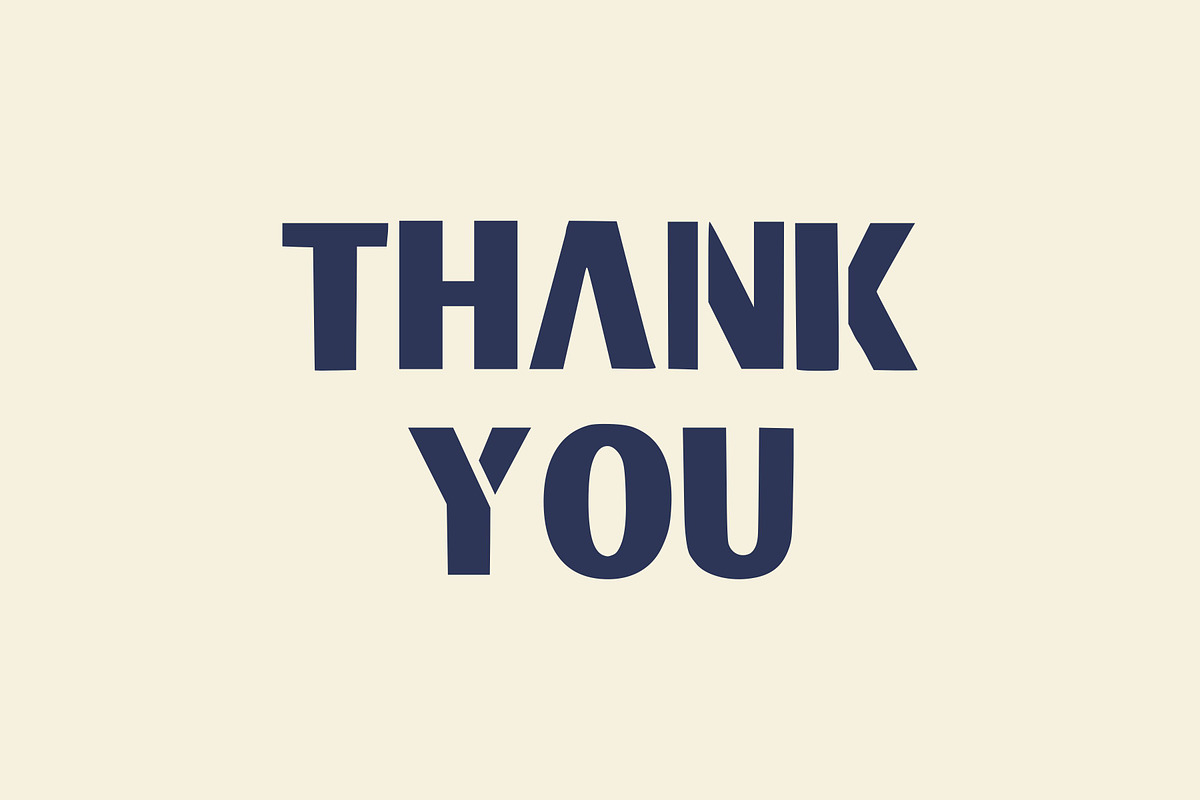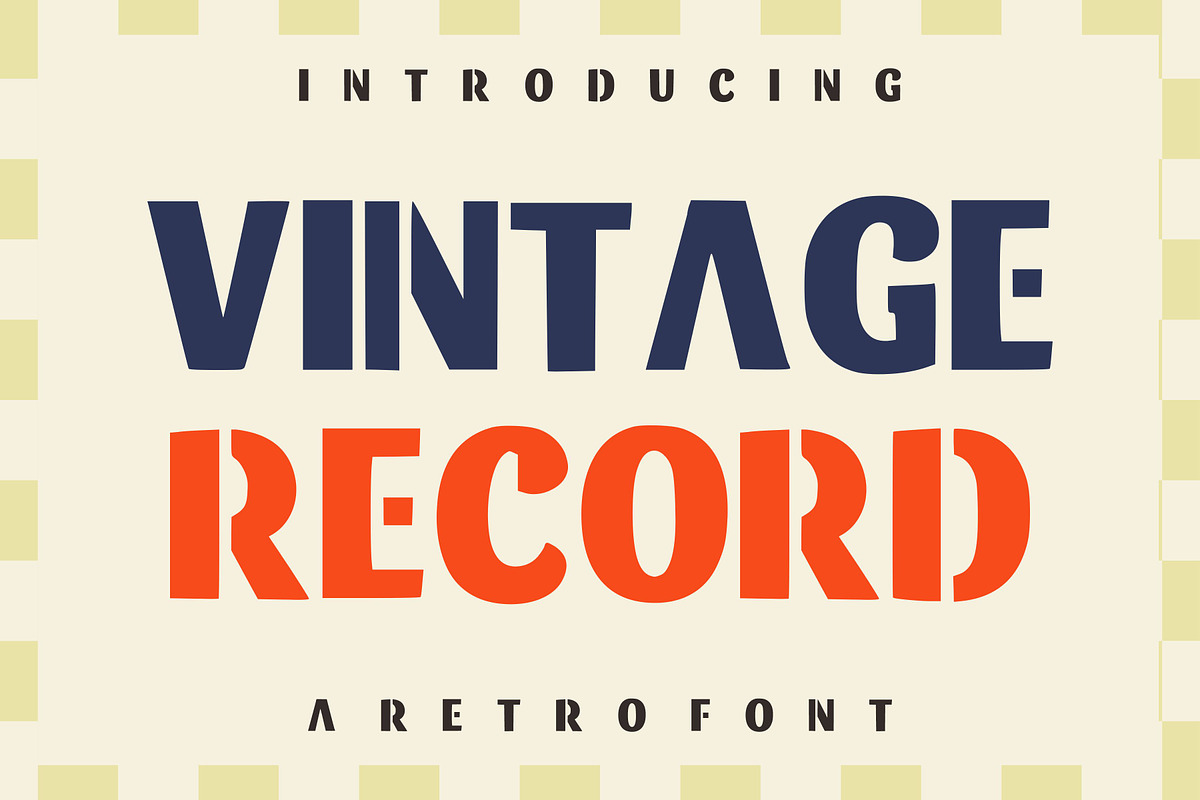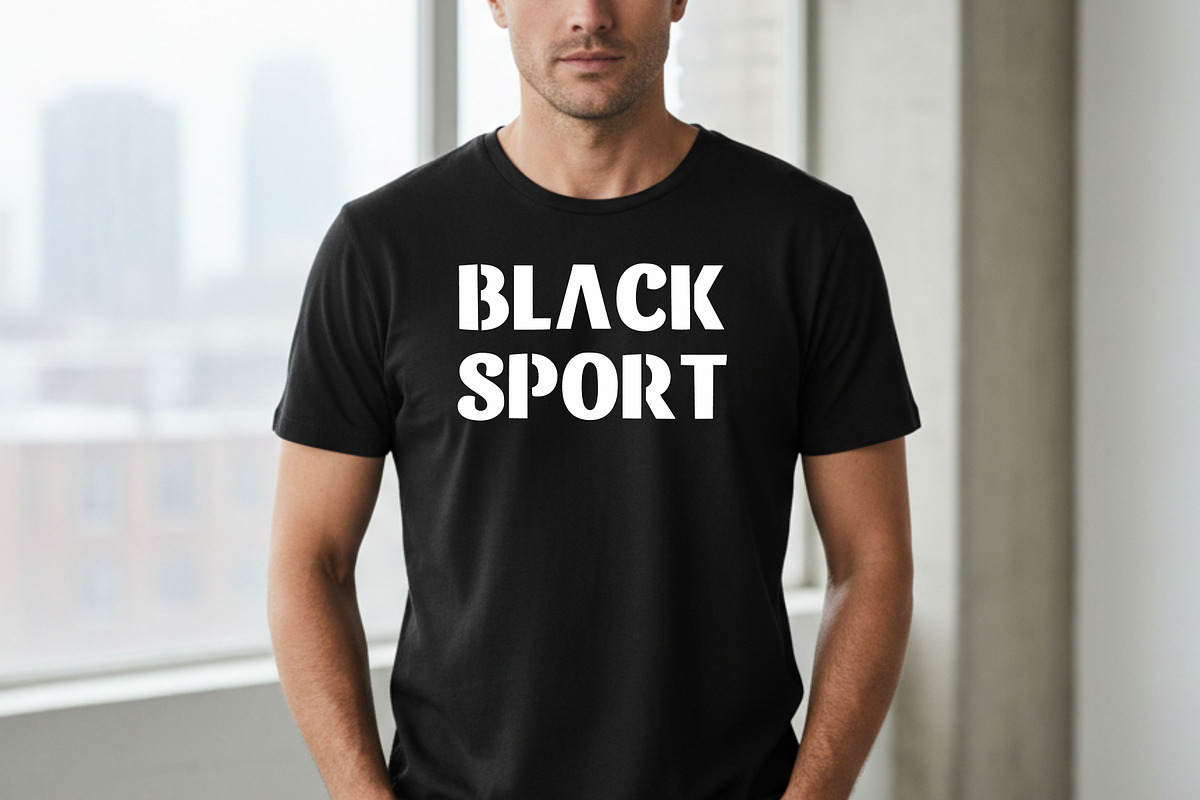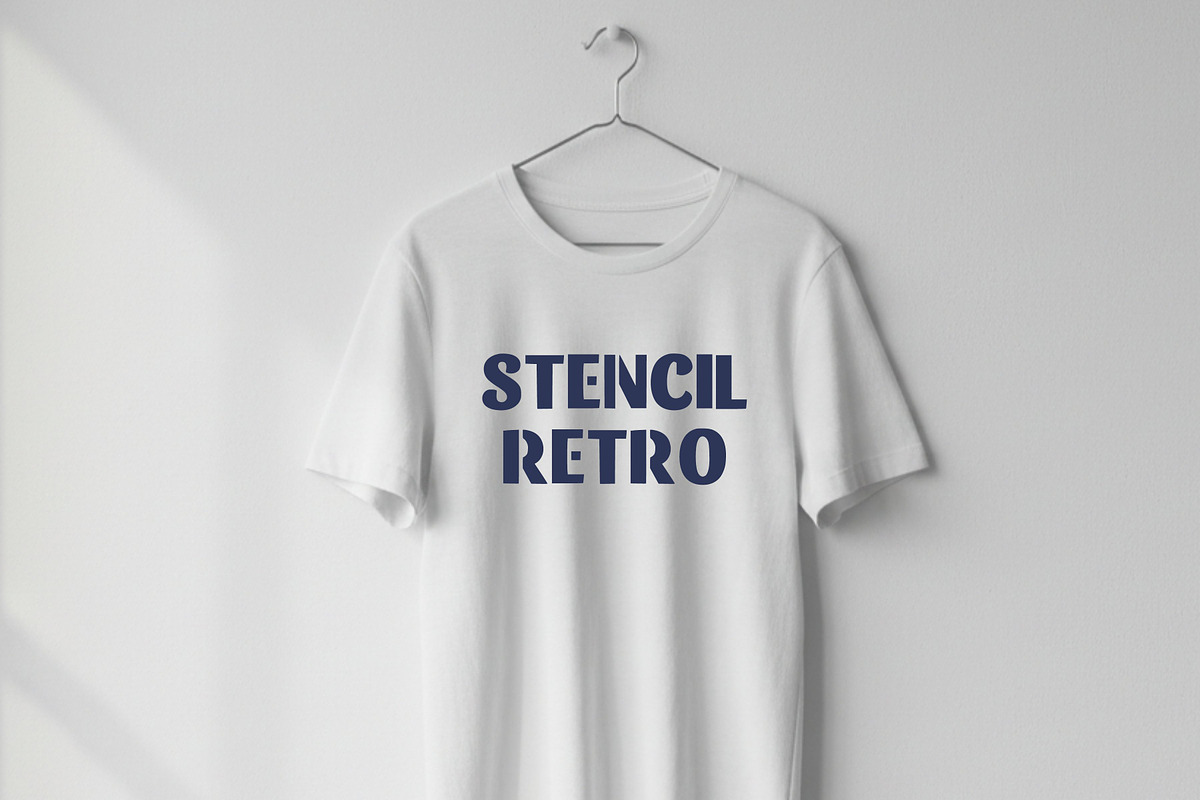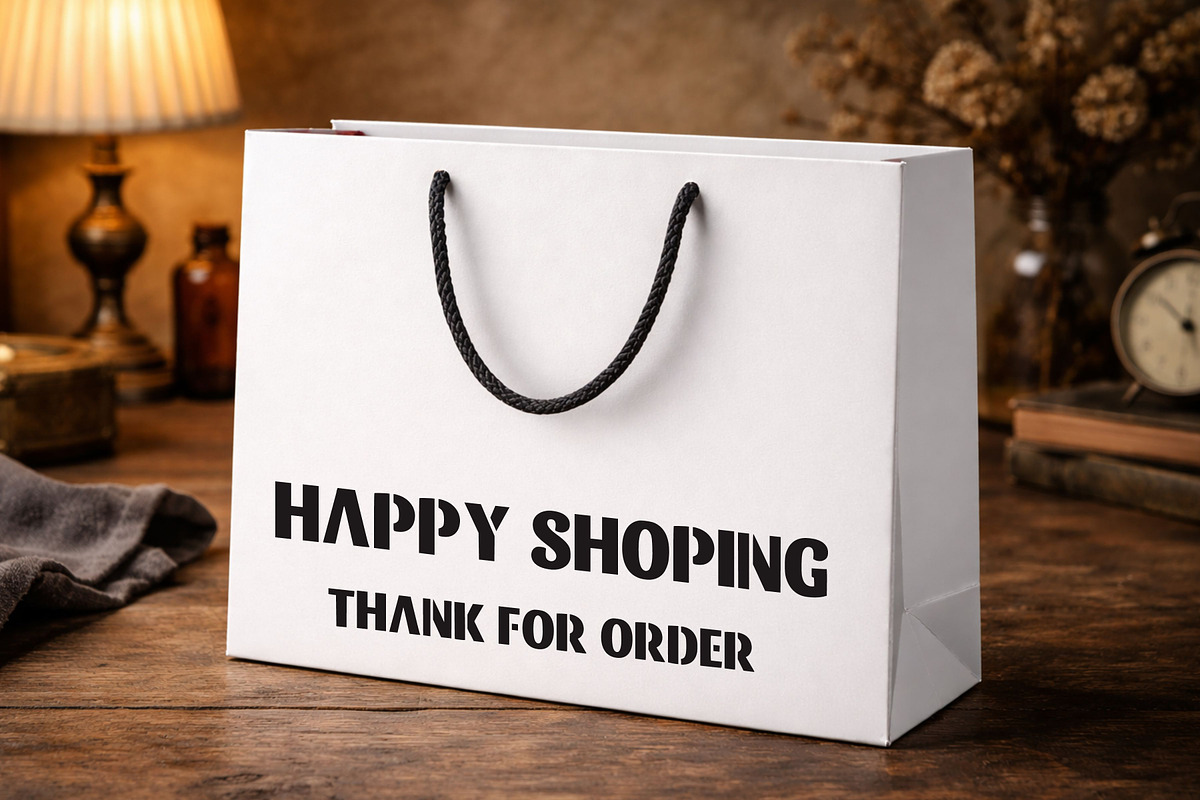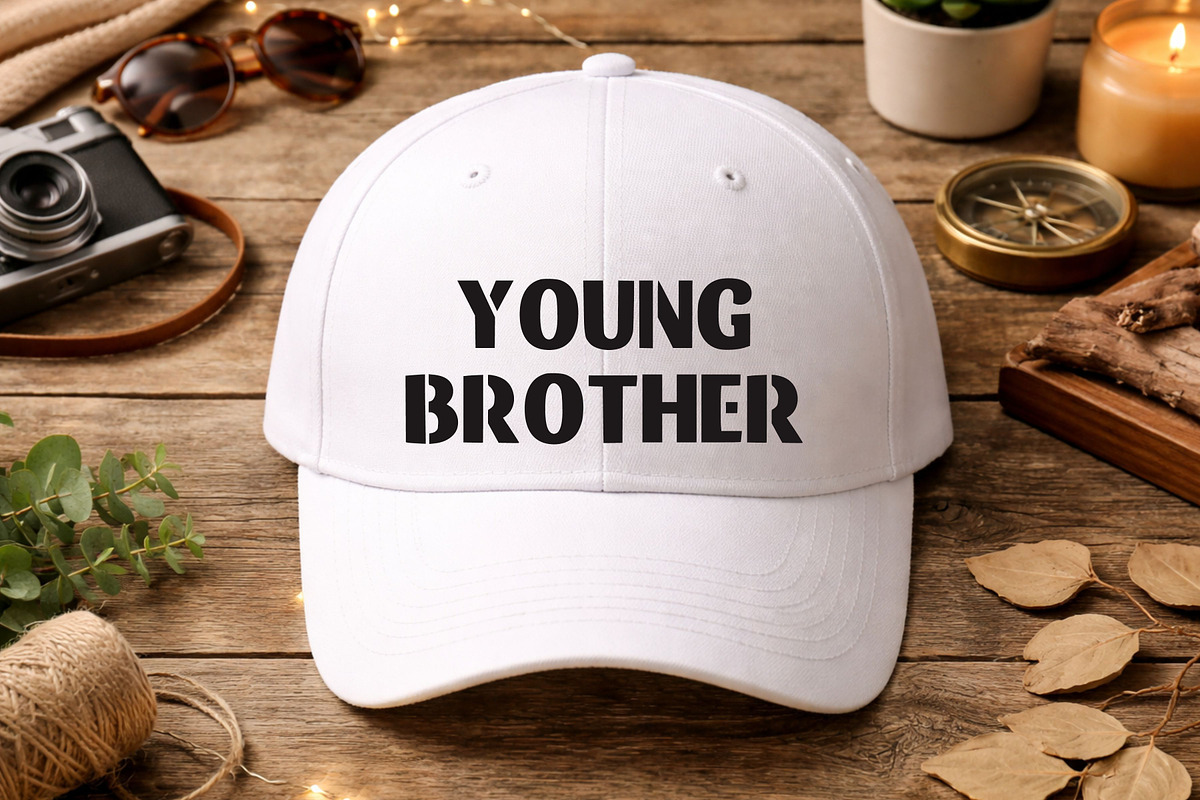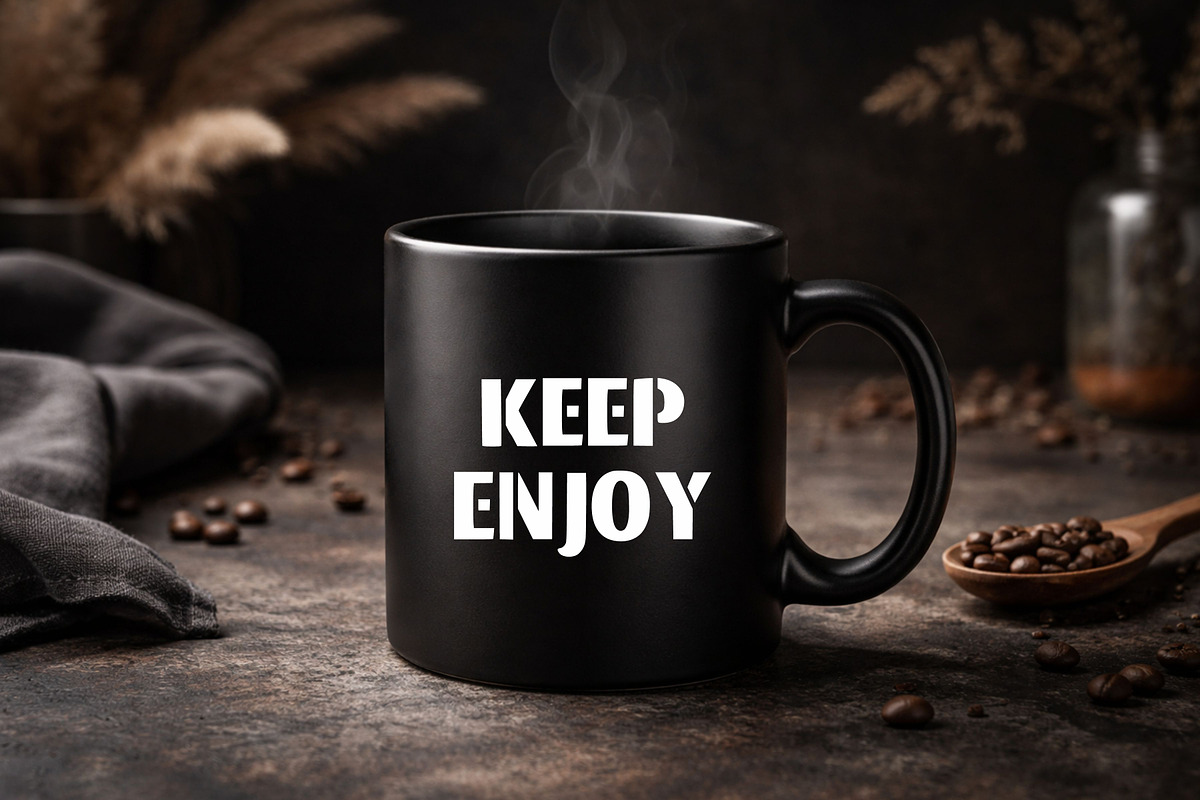
Vintage Record
Vintage Record is a bold and eye-catching retro display font inspired by the golden age of vinyl records and mid-century typography. With its strong geometric shapes and nostalgic feel, this font is perfect for creating standout designs with a vintage twist.
Whether you’re working on posters, branding, packaging, or social media graphics, Vintage Record delivers a timeless retro aesthetic that grabs attention instantly.
Retro & vintage designs Music-themed projects Posters & headlines Branding & logos T-shirt designs Packaging